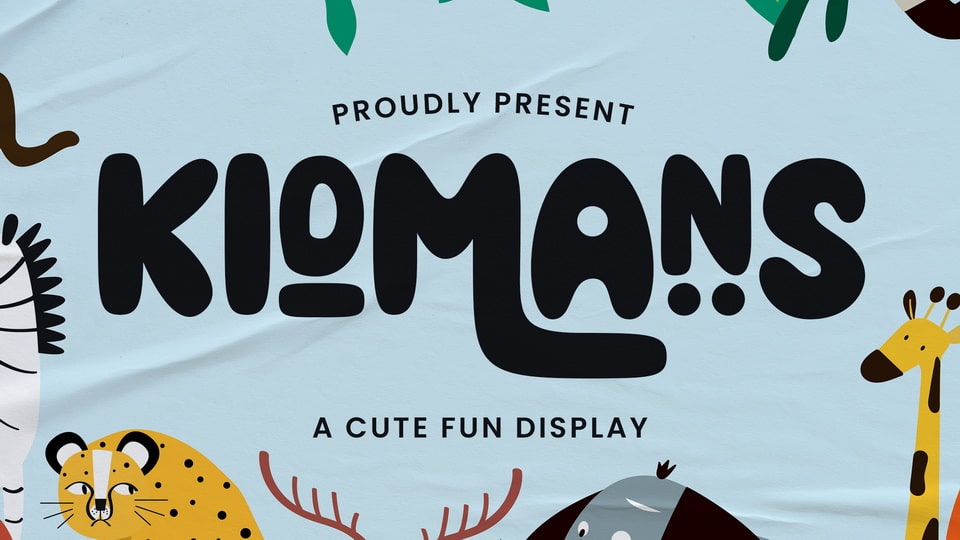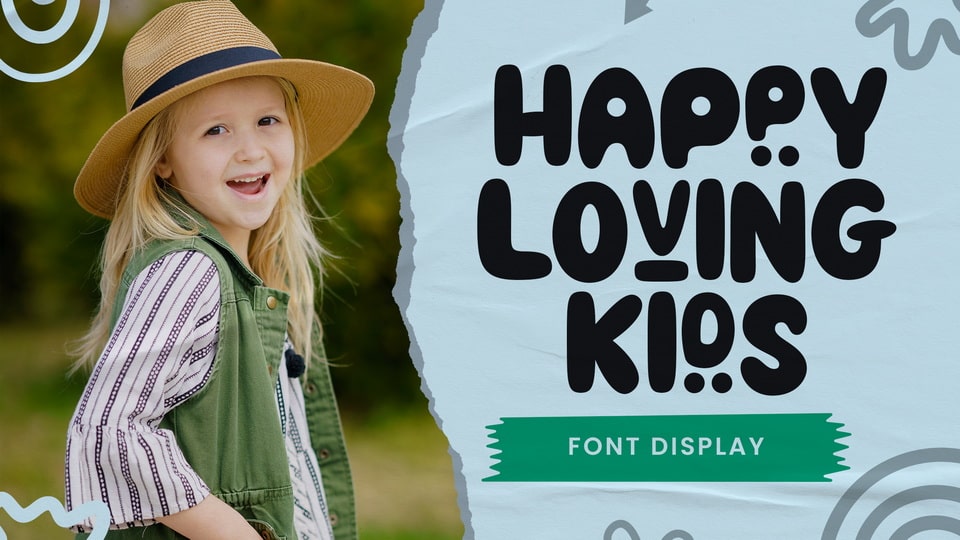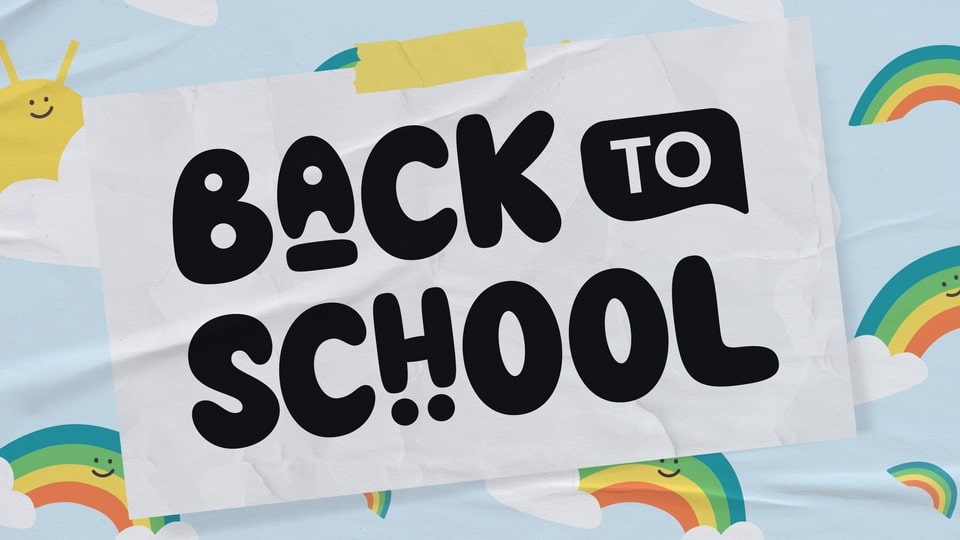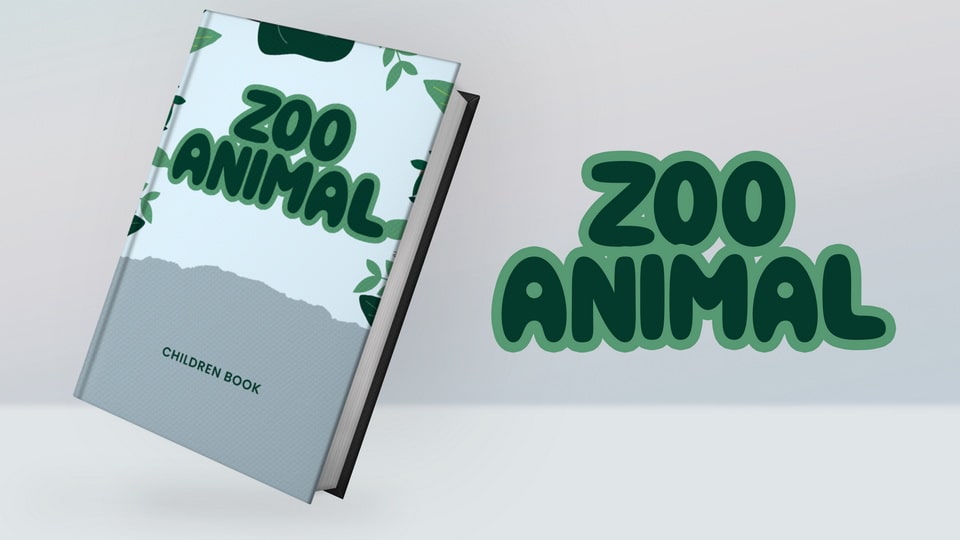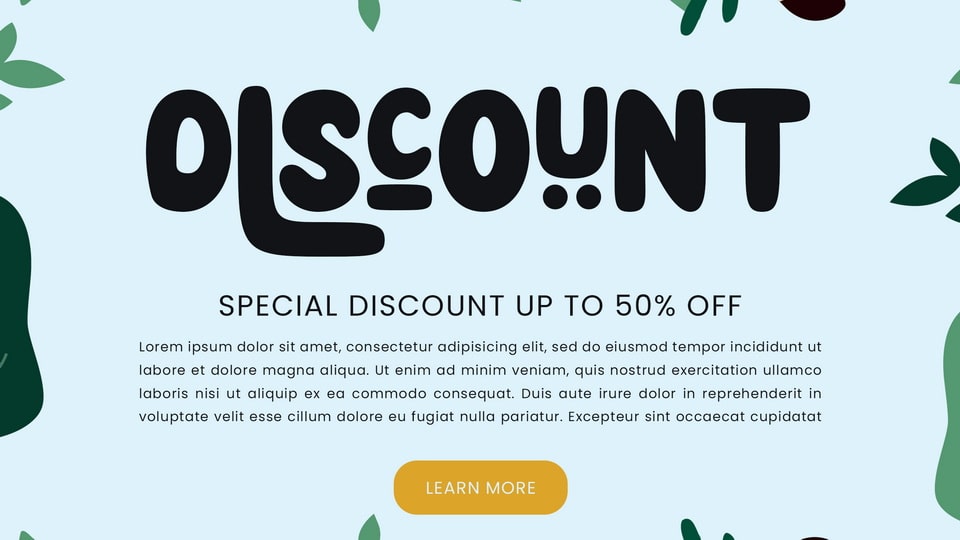
Kidmans is a cute, friendly, and fun display font. Whether you’re using it for crafts, digital design, presentations, or making greeting cards, this font has the potential to become your favorite go-to font, no matter the occasion!